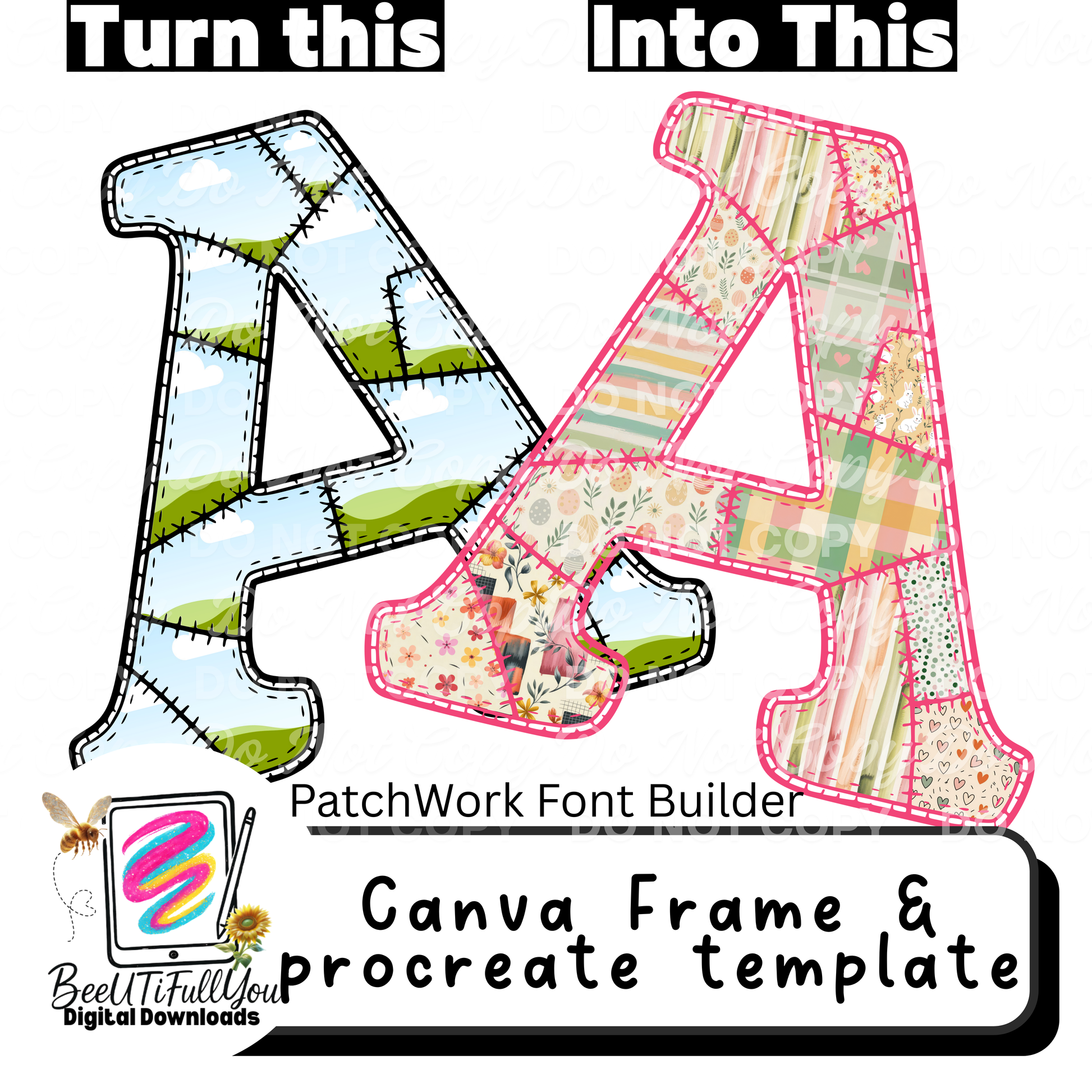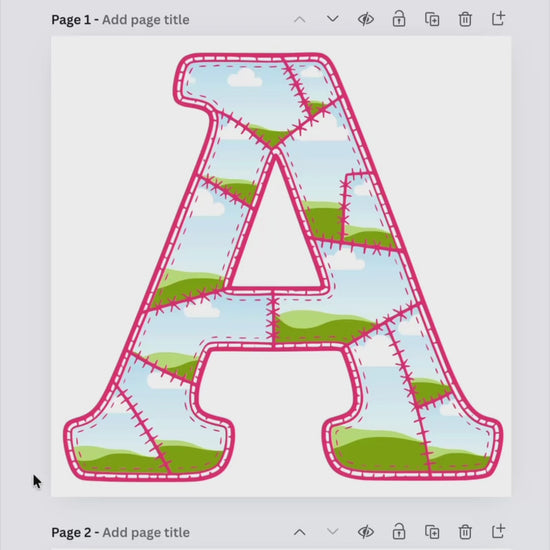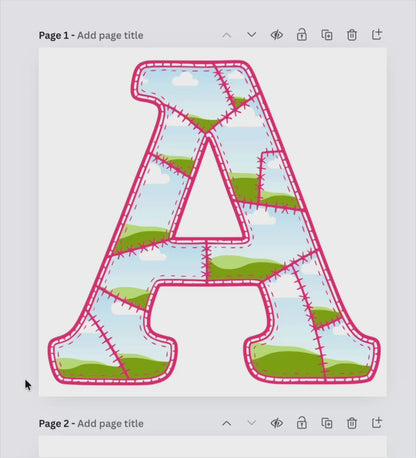
Create stunning patchwork quilt-style letters with this Patchwork Font Builder Template! This template allows you to easily turn patterns, textures, clipart, or digital paper into beautiful quilt-style typography designs using Canva Frames or Procreate clipping masks.
Simply drop your favorite patterns or digital papers into the frame sections to instantly create unique quilt-style letters perfect for shirts, clipart, sublimation designs, and more.
This template is perfect for designers, crafters, and digital product creators who want to quickly build eye-catching patchwork typography.
✨ What You Can Create
• Quilt-style alphabet designs
• Patchwork typography graphics
• Trendy shirt designs
• Clipart and sublimation graphics
• Pattern-filled lettering for digital products
🎨 Template Features
• Patchwork quilt-style letter layout
• Designed for easy pattern placement
• Works with Canva frames and Procreate clipping masks
• Clean layered structure for easy editing
• Beginner-friendly customization